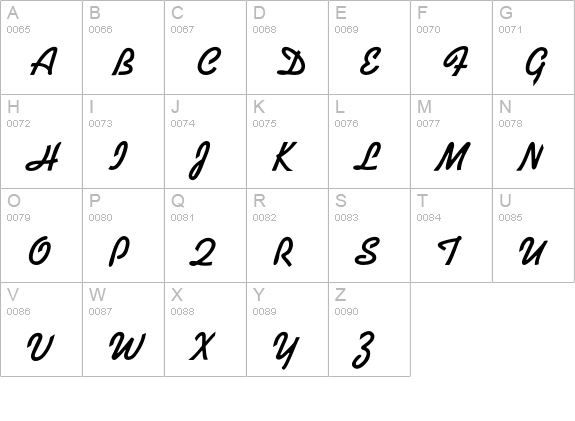
KaufmannScriptBold Font Details
Introducing KaufmannScriptBold, a stunning and elegant font that will captivate your audience with its timeless beauty. This font exudes sophistication and charm, making it the perfect choice for any project that requires a touch of elegance. KaufmannScriptBold features beautiful and intricate letterforms that effortlessly flow together, creating a seamless and harmonious composition. Its bold weight adds a sense of strength and presence, making it ideal for headlines, logos, invitations, and more. But what sets KaufmannScriptBold apart from other fonts is its versatility and ability to adapt to any design style. Whether you're working on a vintage-inspired project or a modern and sleek design, this font will effortlessly complement your vision. And the best part? KaufmannScriptBold is available for free! You can easily download this exquisite font at FontsMarket.com, where you'll find a vast collection of high-quality fonts to elevate your designs to new heights. Don't miss out on this opportunity to enhance your creative endeavors with KaufmannScriptBold. Download it now and let its timeless elegance breathe life into your projects.